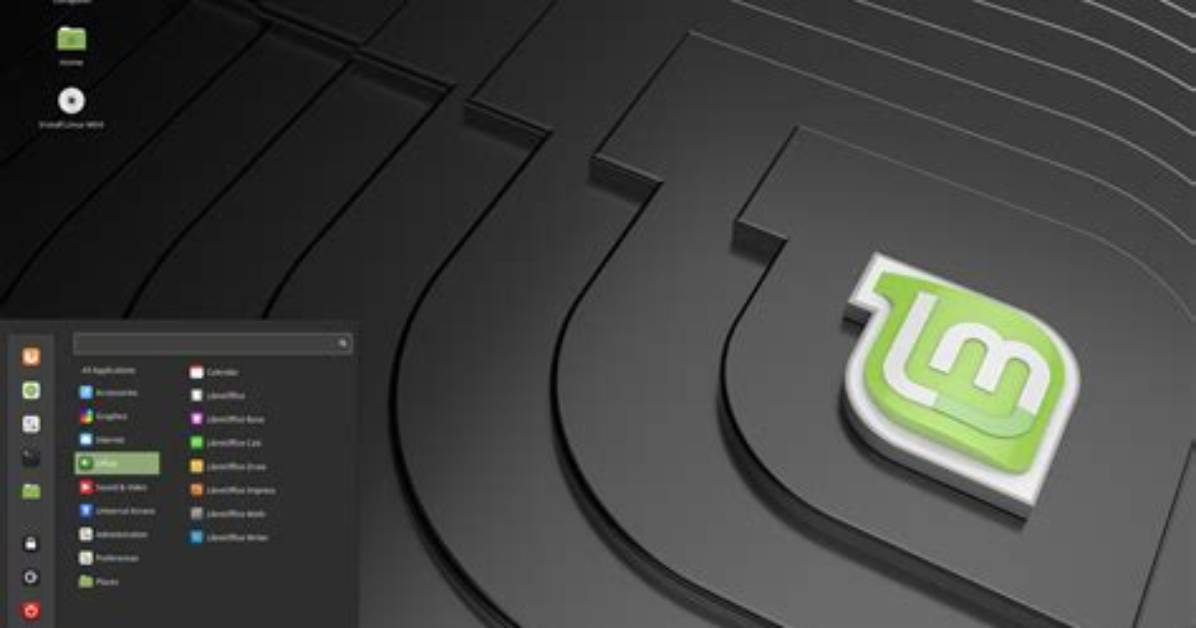
What Font Does Linux Mint Use?
Default font: Roboto Regular, 9.
What font does Linux use?
Terminal is a family of monospaced raster typefaces. It is relatively small compared with Courier. It uses crossed zeros, and is designed to approximate the font normally used in MS-DOS or other text-based consoles such as on Linux.
Terminal (typeface)
| Designer(s) | Bitstream Inc. |
|---|---|
| Date created | 1984 |